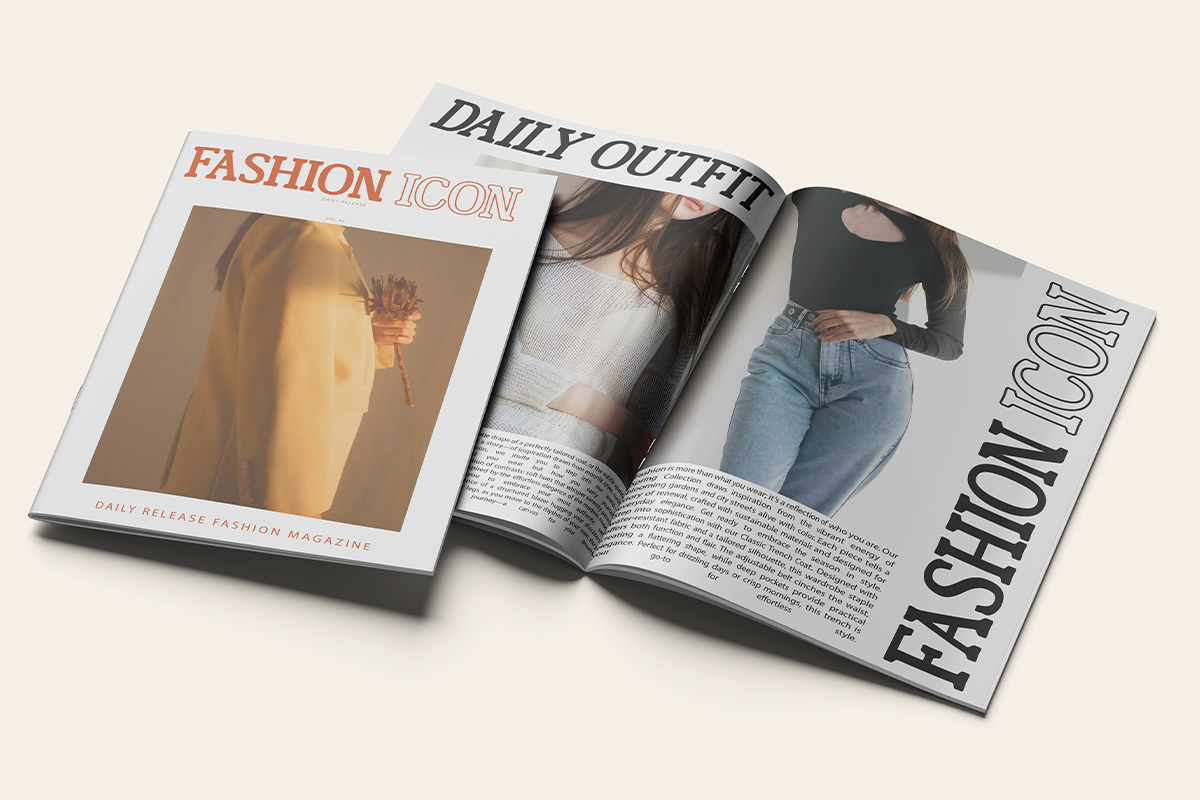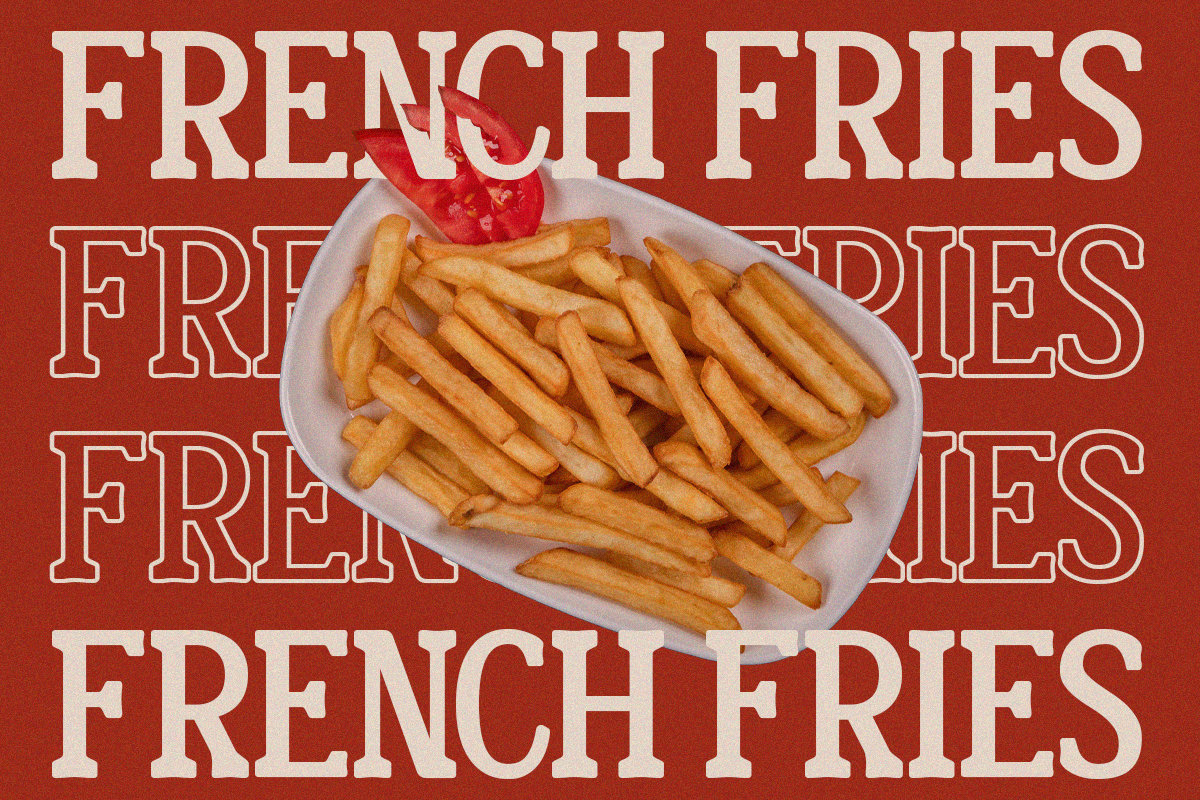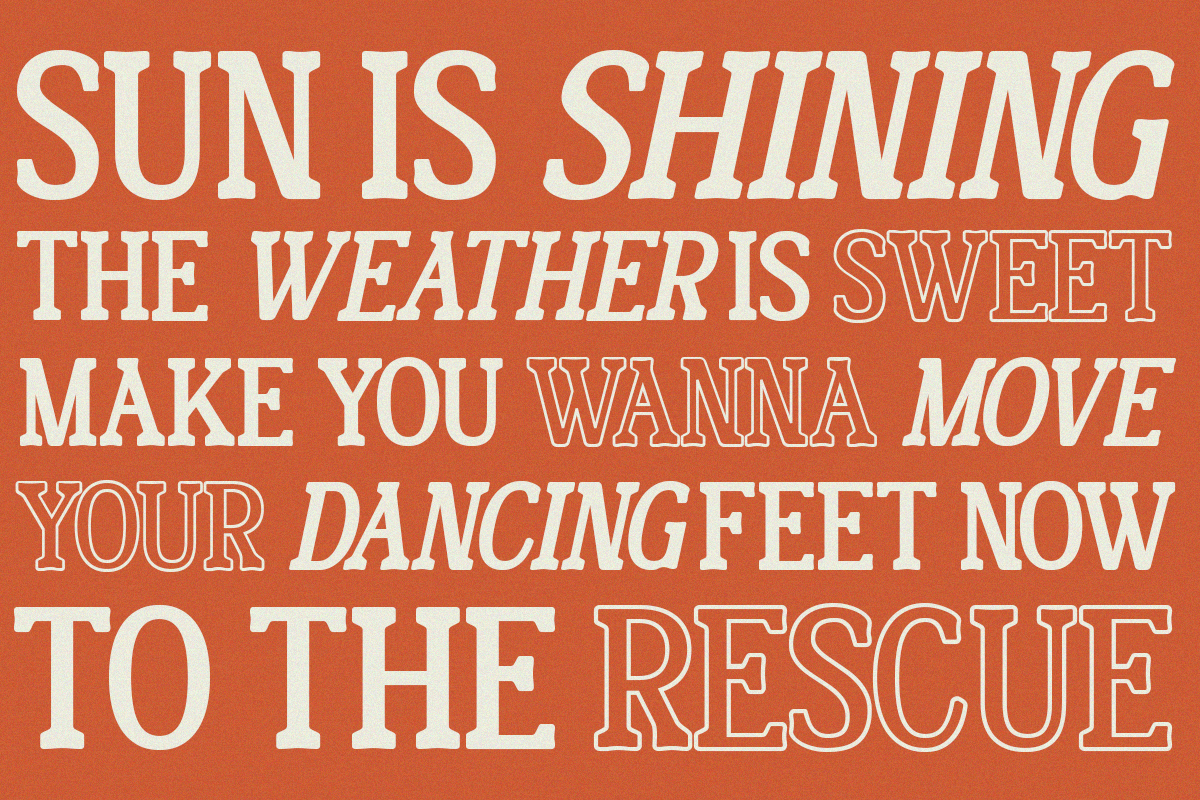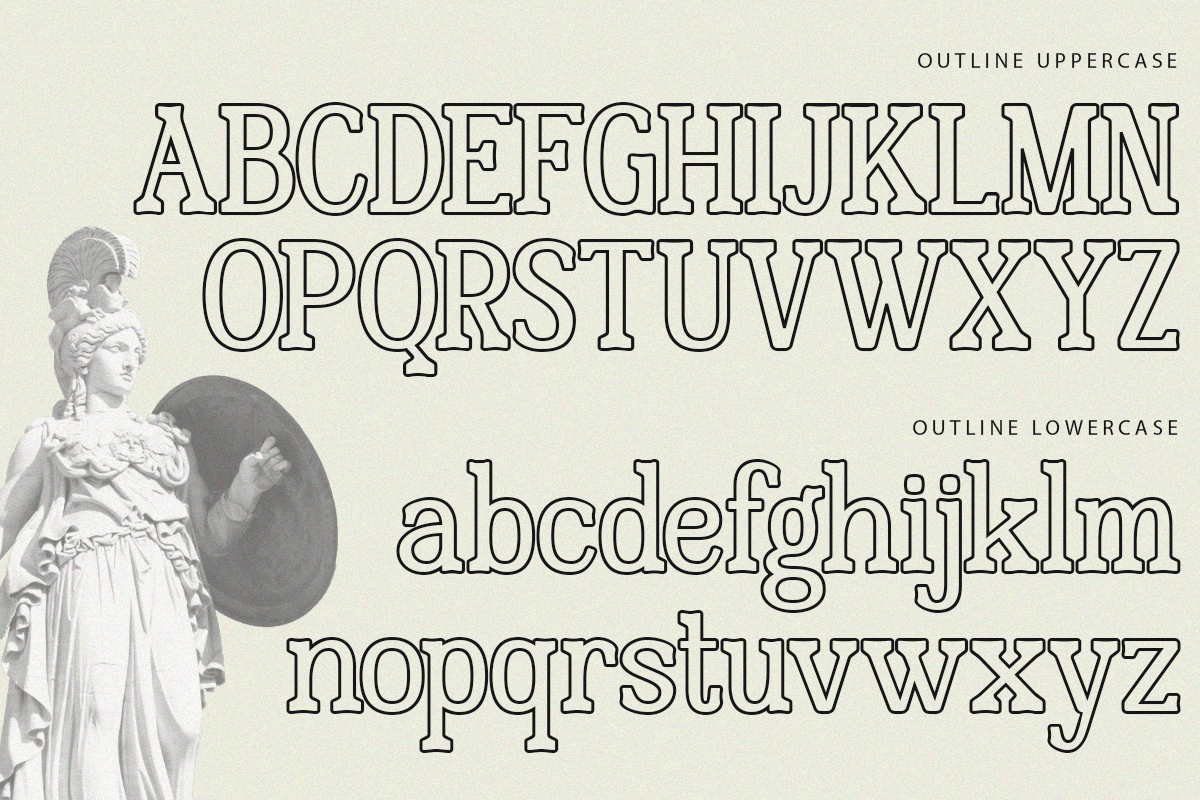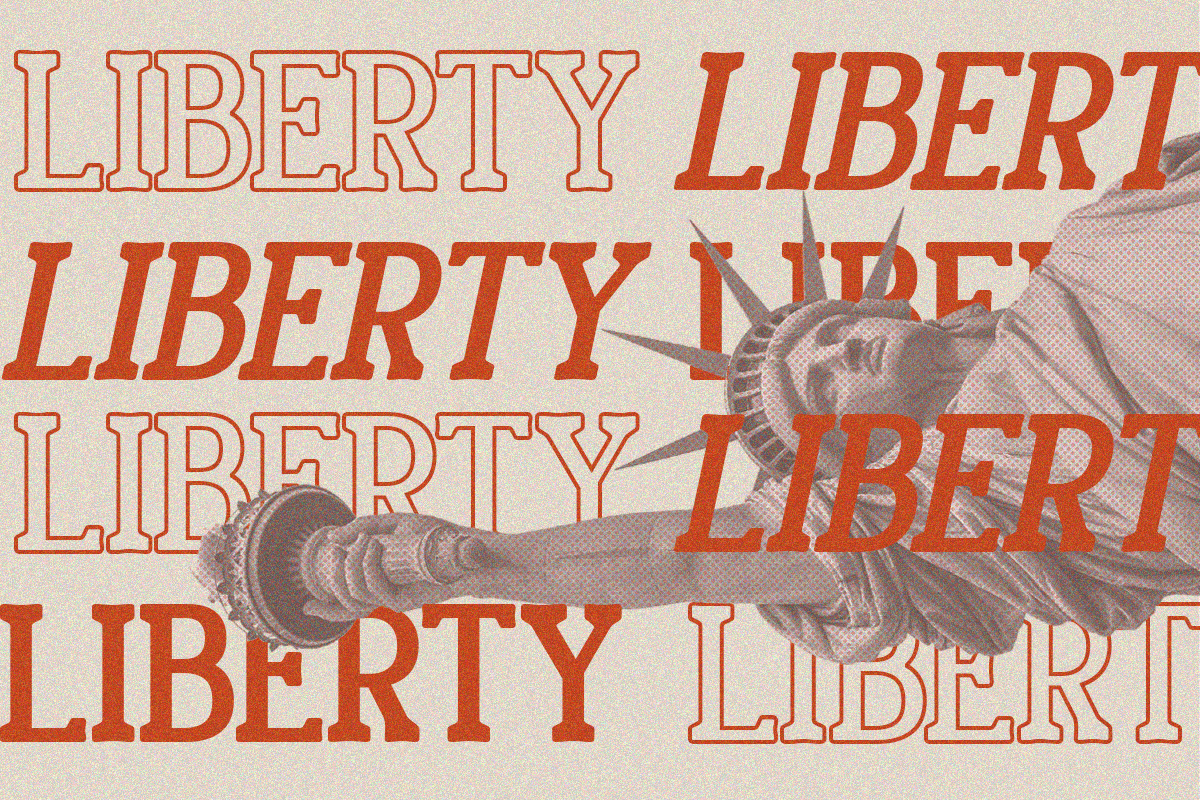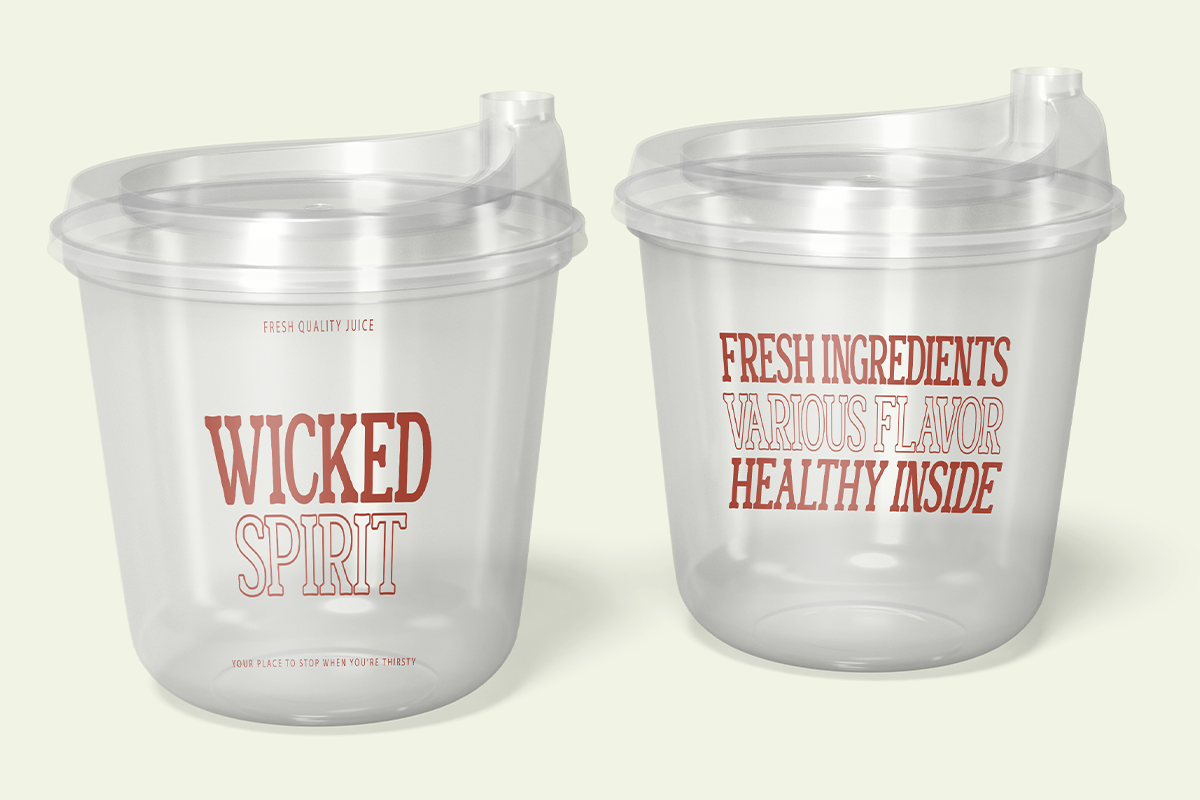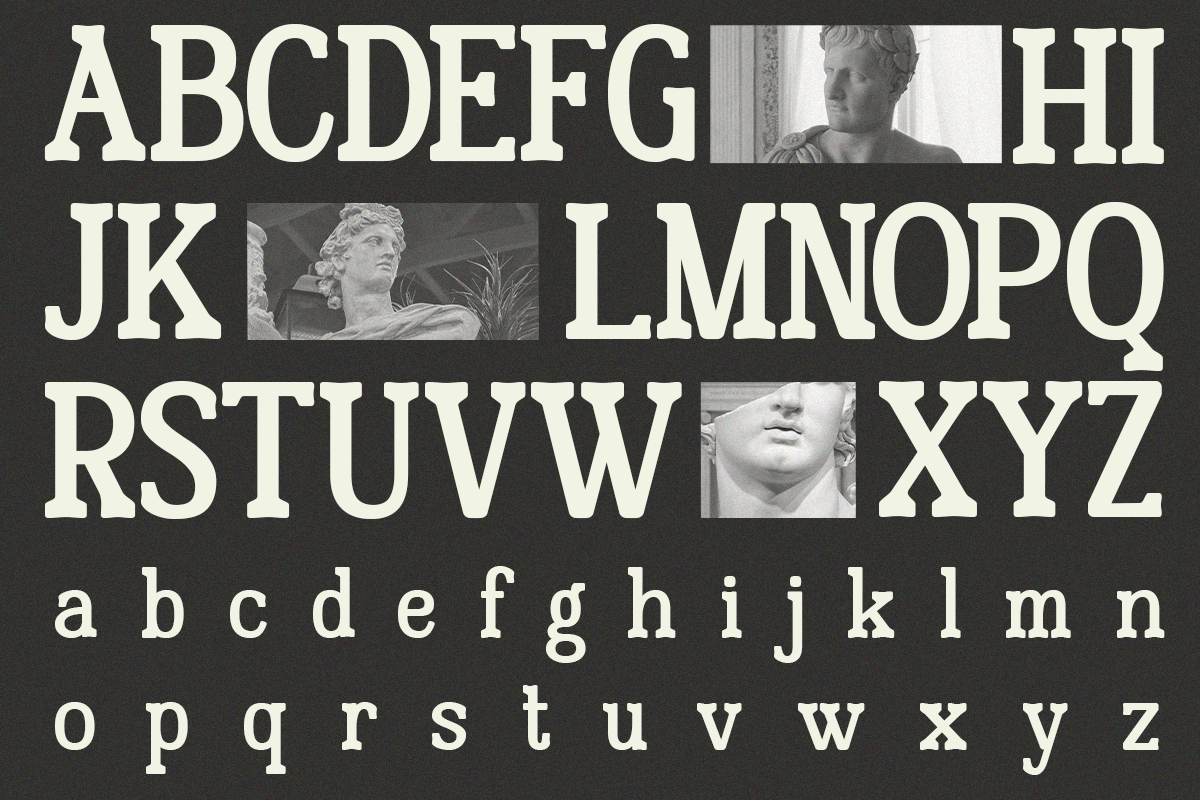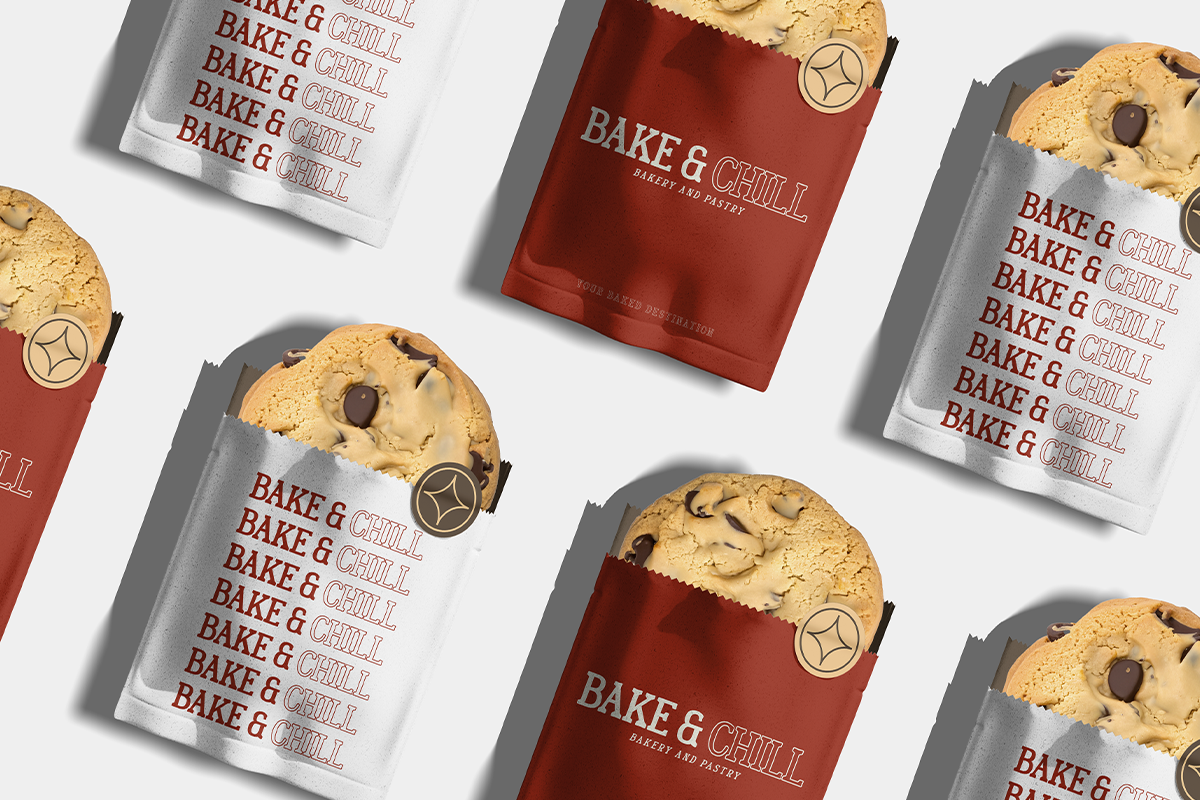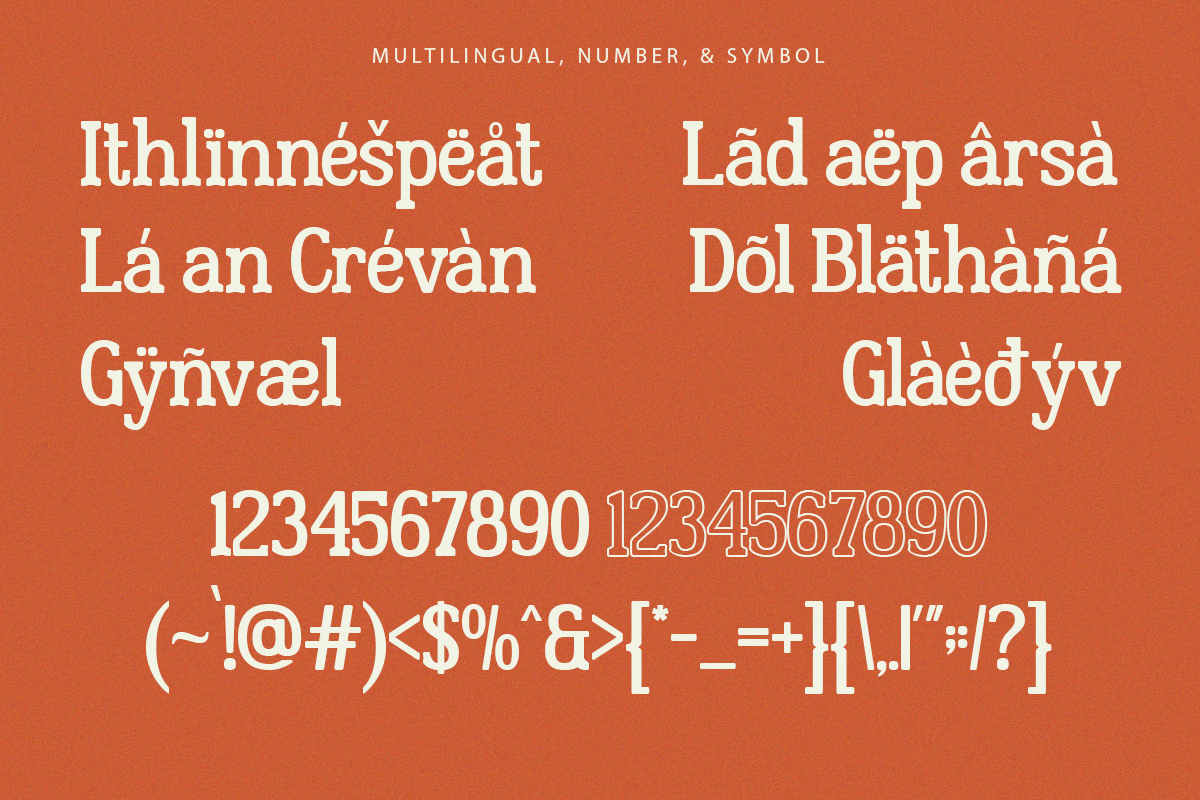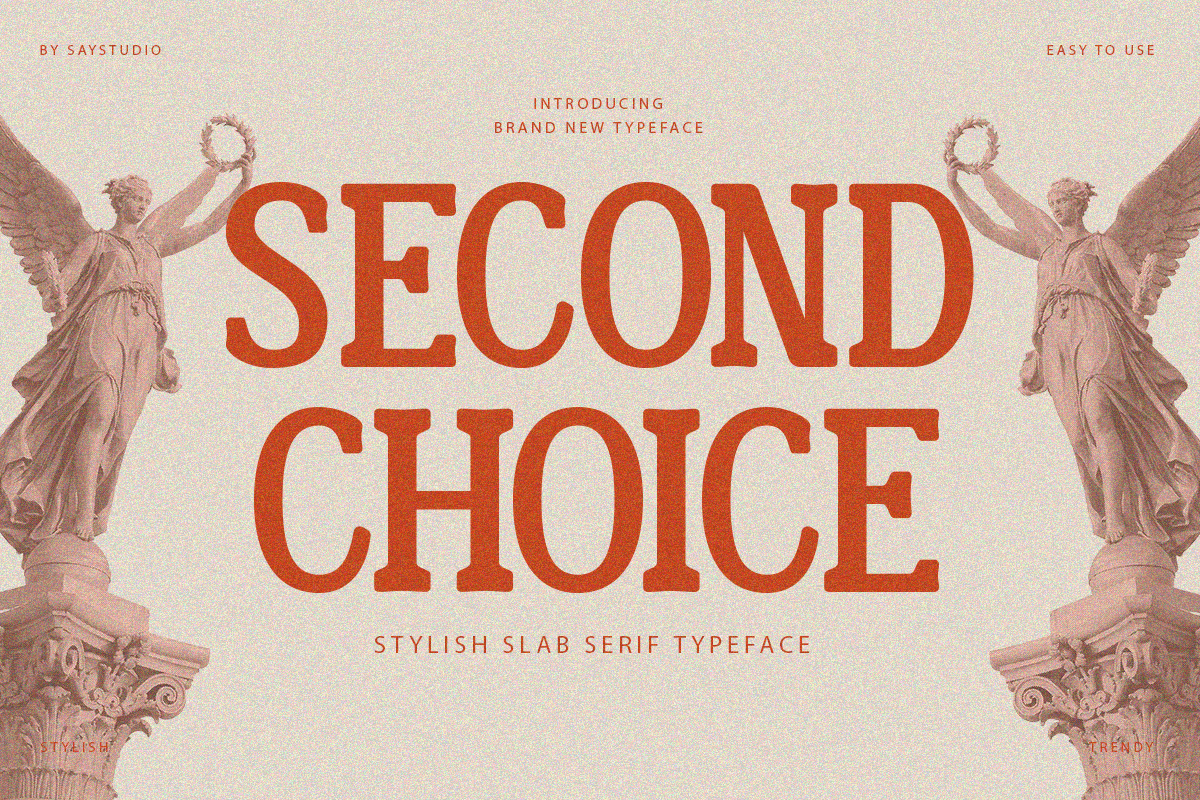
Second Choice - Stylish Slab Font
Second Choice is a Stylish Slab Serif Font with 3 style , developed from scans of vintage letterpress advertising. Second Choice evokes a time when advertising was verbose and energetic. And helps to create stunning logos, quotes, posts, blog posts, branding projects, magazine imagery, wedding invitations, and much more.
- Multi Language Support